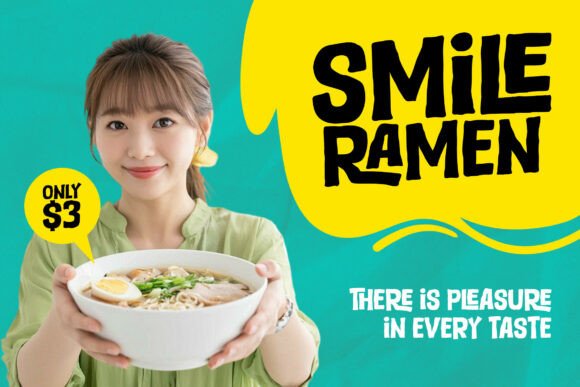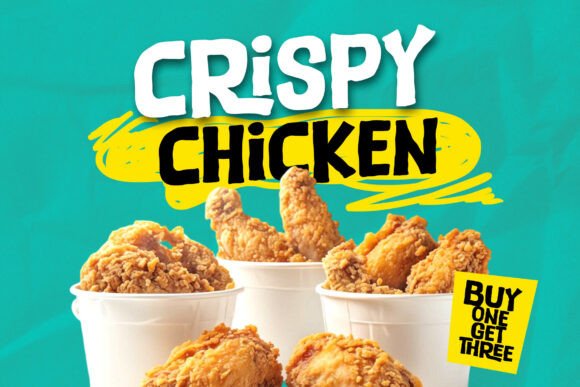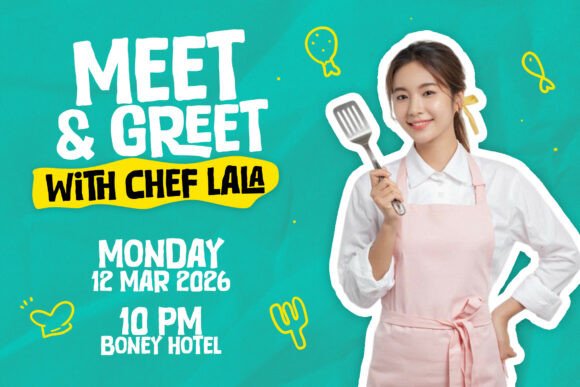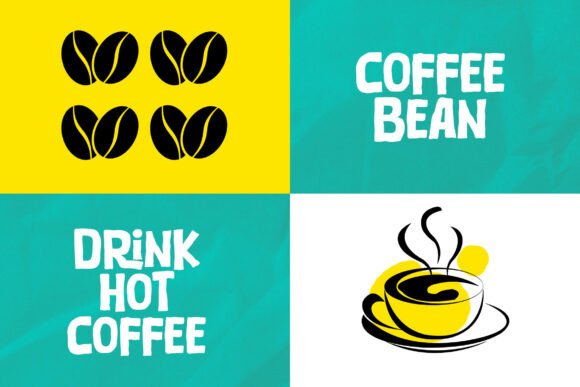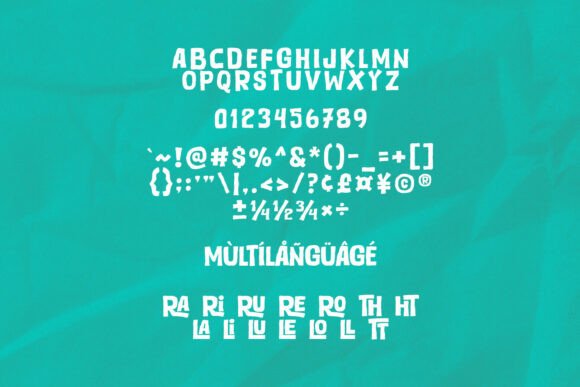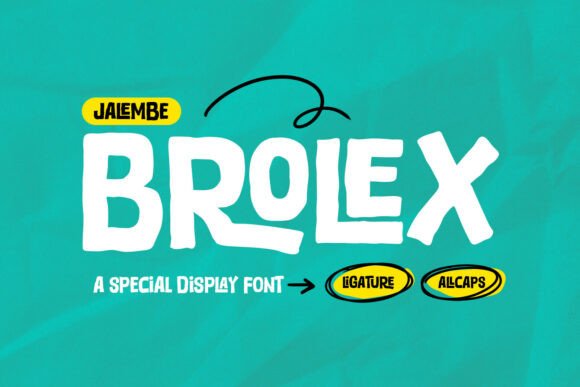
Introducing Brolex Font: The Modern and Cute Display Font for Creative Designs
Are you a designer or crafter looking for a font that can add a touch of modernity and cuteness to your projects? Look no further than Brolex Font! This versatile display font is perfect for a wide range of creative endeavors, from posters and logos to magazines, book covers, banners, and more.
What Makes Brolex Font So Special?
Brolex Font is a modern and cute display font that is designed to make your designs stand out. Its unique and playful style makes it perfect for projects that require a touch of personality and whimsy. Whether you’re creating a logo, poster, or social media graphic, Brolex Font is sure to grab attention and leave a lasting impression.
Endless Design Possibilities with Brolex Font
One of the best things about Brolex Font is its versatility. It can easily be matched to an incredibly large set of projects, making it a great addition to your font collection. Here are just a few ideas to get you started:
- Posters: Create eye-catching posters for events, promotions, or announcements using Brolex Font.
- Logos: Use Brolex Font to create a unique and memorable logo for your business or brand.
- Magazines: Add a touch of modernity to your magazine layouts with Brolex Font.
- Book Covers: Make your book cover stand out with Brolex Font.
- Banners: Create attention-grabbing banners for websites, social media, or events using Brolex Font.
Why Choose Brolex Font?
So why choose Brolex Font over other display fonts? Here are just a few reasons:
- Unique Style: Brolex Font has a unique and playful style that sets it apart from other fonts.
- Versatility: Brolex Font can be used for a wide range of projects, making it a great addition to your font collection.
- Easy to Use: Brolex Font is easy to use and can be easily integrated into your designs.
- High-Quality: Brolex Font is a high-quality font that is designed to produce crisp and clear results.
Tips for Using Brolex Font
Here are a few tips for using Brolex Font to get the most out of this amazing font:
- Experiment with Different Sizes: Brolex Font looks great in a variety of sizes, so don’t be afraid to experiment to find the perfect size for your project.
- Pair with Other Fonts: Brolex Font pairs well with other fonts, so try pairing it with a sans-serif font for a modern look.
- Use it Sparingly: Brolex Font is a bold font, so use it sparingly to add emphasis to your designs.
In conclusion, Brolex Font is a modern and cute display font that is perfect for designers and crafters looking to add a touch of personality to their projects. With its unique style, versatility, and ease of use, Brolex Font is a great addition to any font collection. So why wait? Get Brolex Font today and start creating amazing designs that stand out!
Whether you’re a seasoned designer or just starting out, Brolex Font is a great choice for any project. Its modern and cute style makes it perfect for a wide range of creative endeavors, from posters and logos to magazines and book covers. So go ahead, get creative, and see what amazing designs you can create with Brolex Font!